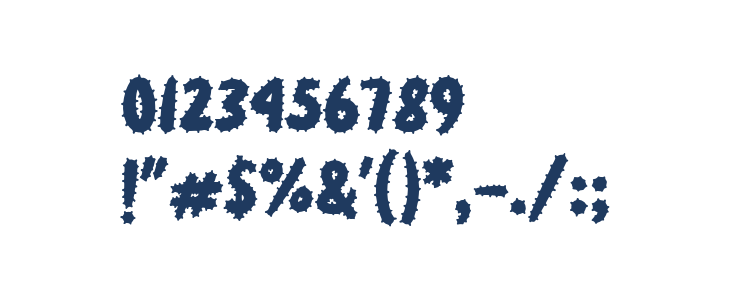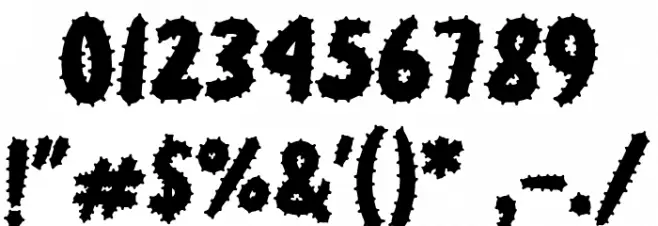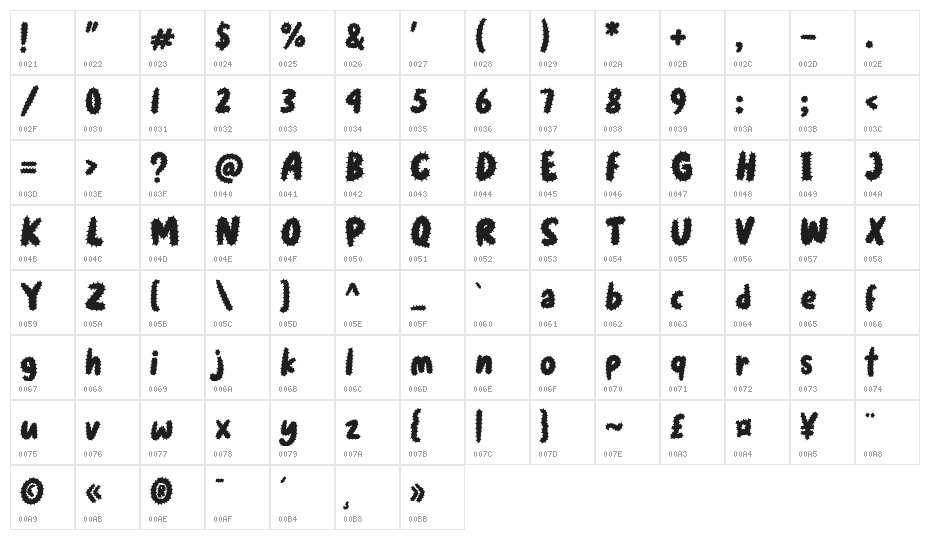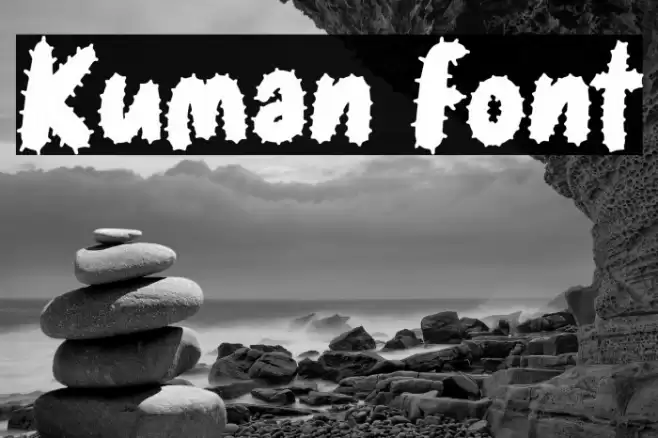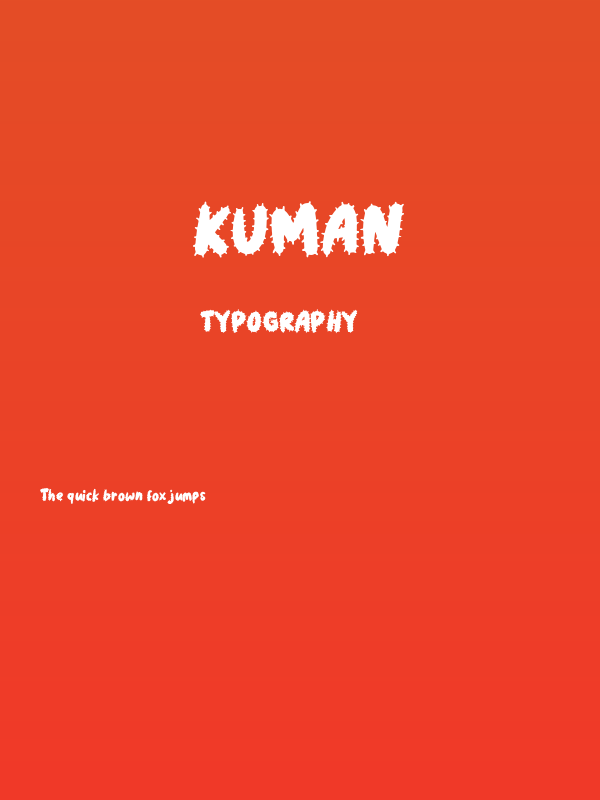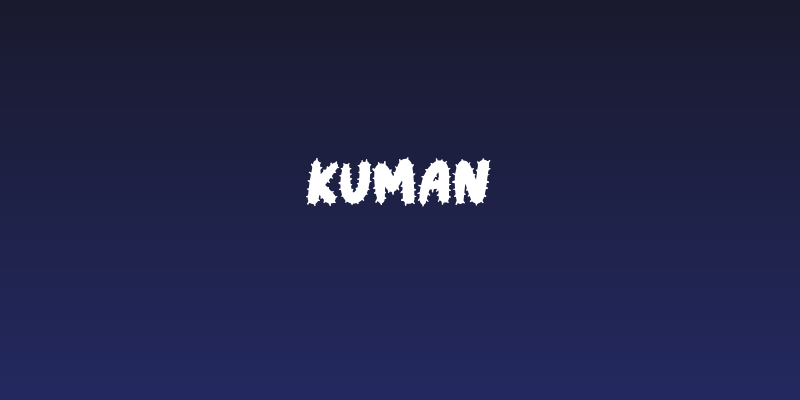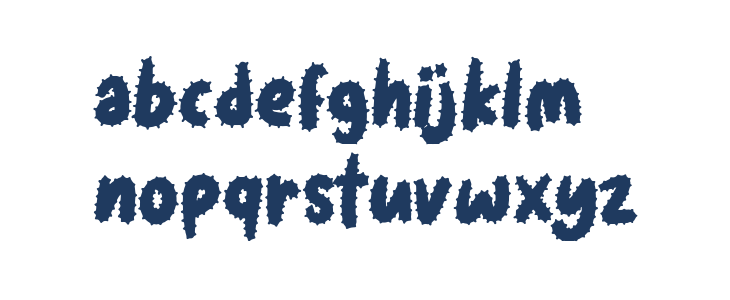
Kuman Font
Kuman Description
This font features a bold, playful design with a jagged, textured edge that gives it a unique, eye-catching appearance. The characters are thick and heavily weighted, making them stand out prominently. The irregular, spiky outlines add a sense of movement and energy, making it ideal for creative and informal applications. The uppercase and lowercase letters maintain a consistent style, while the numbers and special characters complement the overall aesthetic. This font is perfect for projects that require a fun and dynamic look.
| Overall Style | Playful, Energetic |
| Proposed Projects | Ideal for children's books, posters, party invitations, and creative branding. |